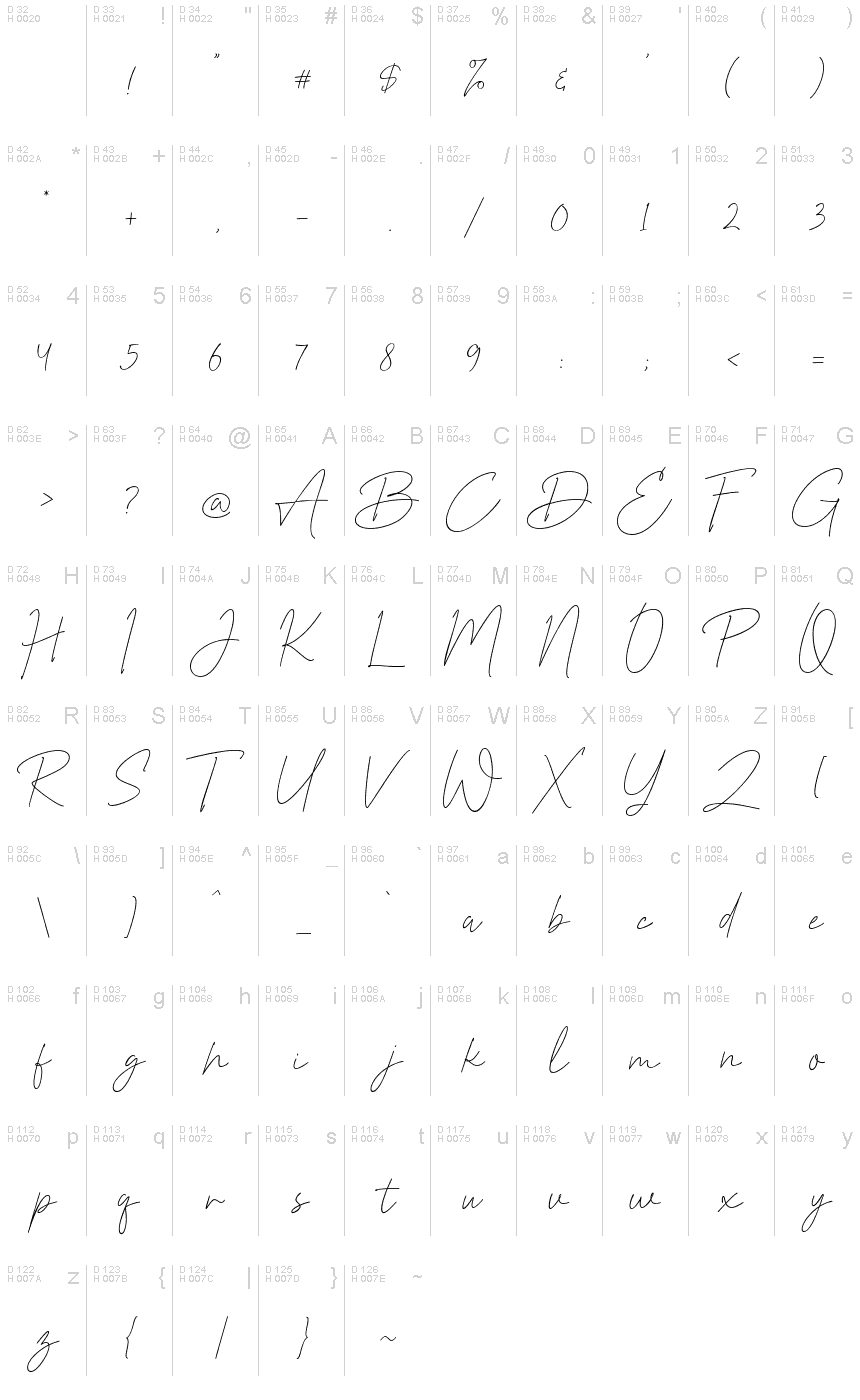
Prettier Script Regular
Prettier Script is a carefully-made handwritten font that can be used for various purposes designed by 50Fox Team. The font is made with our passion on the base of the real handwriting patterns, so the font looks natural and beautiful.
Prettier Script is perfect for branding projects, logo, wedding designs, social media posts, advertisements, product packaging, product designs, label, photography, watermark, invitation, stationery and any projects that need handwriting taste.